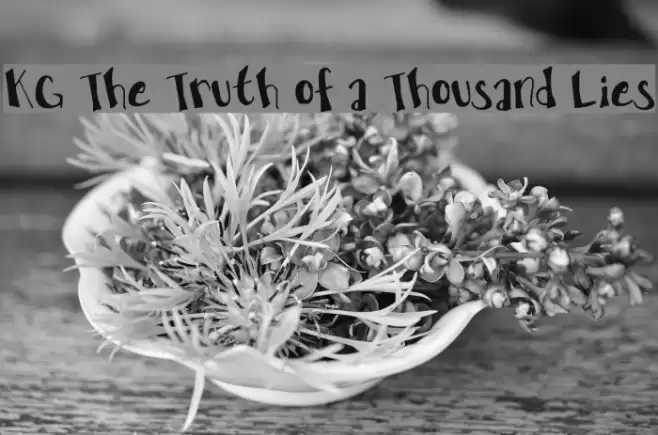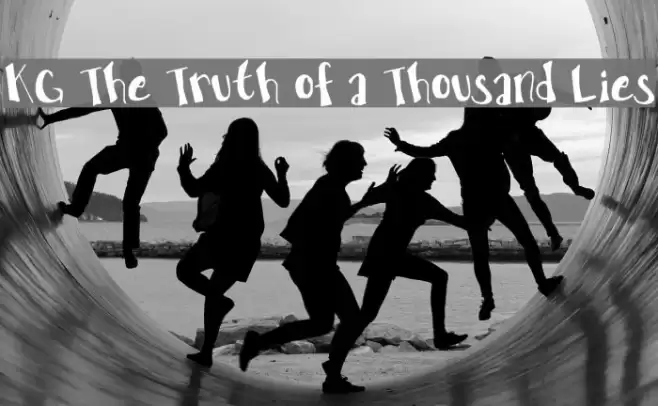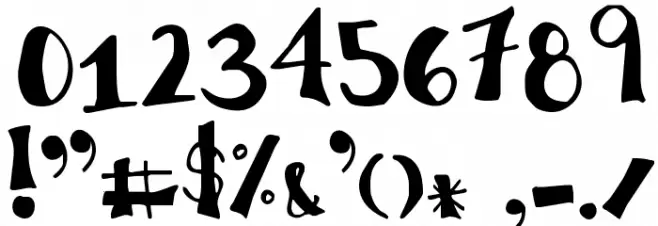
KG The Truth of a Thousand Lies Font
KG The Truth of a Thousand Lies Description
This font features a playful and whimsical style with an uneven baseline and varying stroke widths, giving it a hand-drawn, artistic appearance. The characters are bold and slightly irregular, adding a sense of spontaneity and creativity. Uppercase and lowercase letters maintain a consistent style, with exaggerated curves and angles that enhance its quirky charm. The numerals and special characters follow the same playful design, making it suitable for projects that require a fun and informal touch.
A playful, hand-drawn font with bold, irregular characters from Uncategorized fonts.
- Proposed Projects: Ideal for children's books, creative posters, playful branding, and informal invitations.
- Overall Style: Whimsical, Artistic